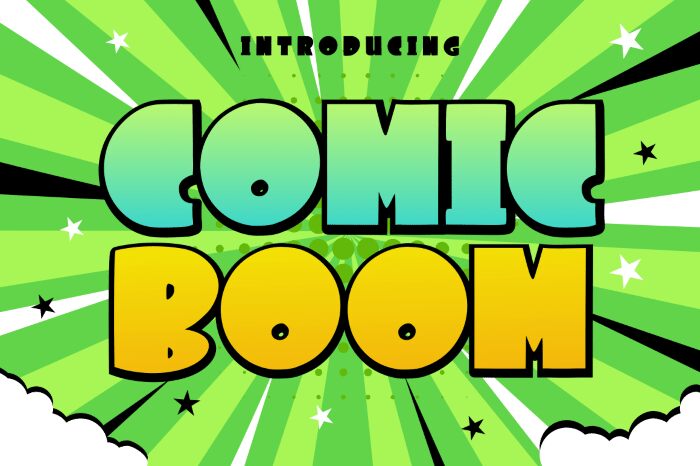
Comic Boom
Comic Boom font by Rissyletter Studio is a bold display font inspired by the whimsical, comic book style. It features rounded edges and a decorative design for casual and approachable read. Its bold appearance imposes authority while the artistic visual keep it light-hearted and playful at the same time.
Comic Boom is free to download for immediate use in magazine covers, T-shirt designs, product packaging, book covers and any other art ideas you might have in mind. Websites promoting or selling superhero comics will benefit from a re-styled header that indirectly enhances a reader’s experience.